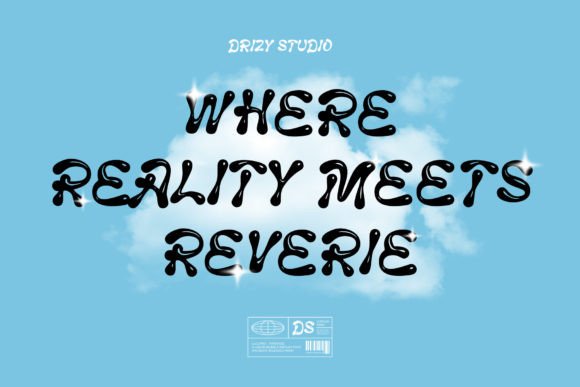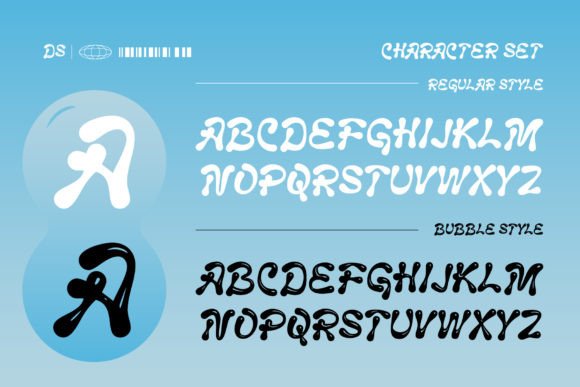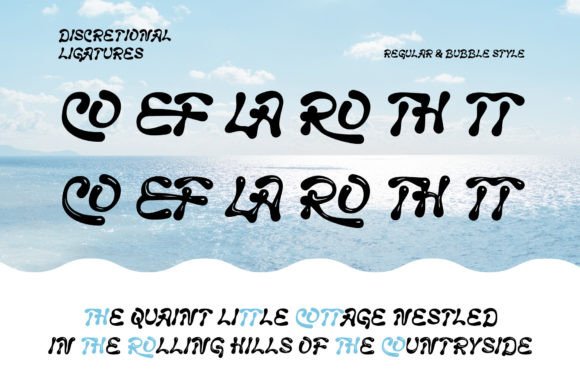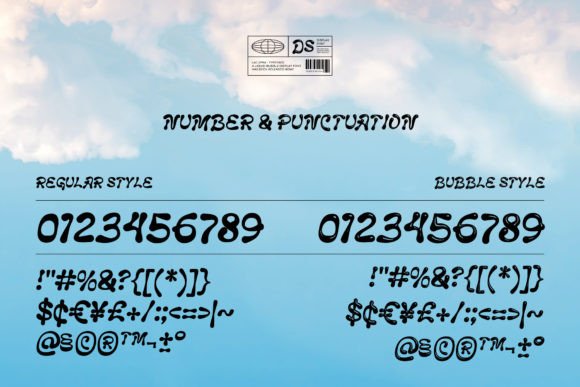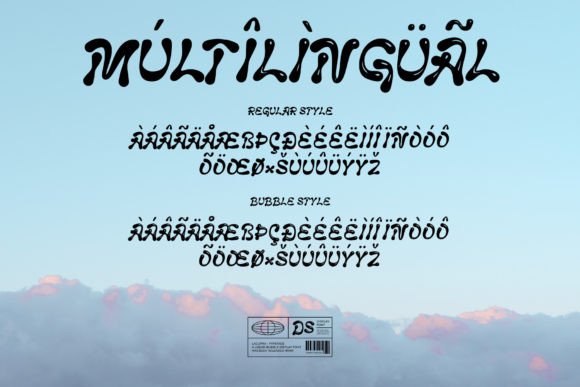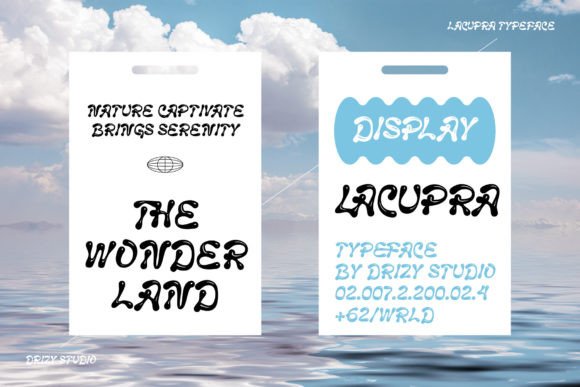
Introduction to Lacupra Font
Introducing Lacupra – Liquid Bubble Display Font, a captivating and versatile typeface that adds a touch of fluidity and dreamy aesthetic to your design projects.
Inspired by the playful elegance of liquid bubbles, Lacupra brings a unique and modern twist to your creative endeavors .
Key Features of Lacupra Font